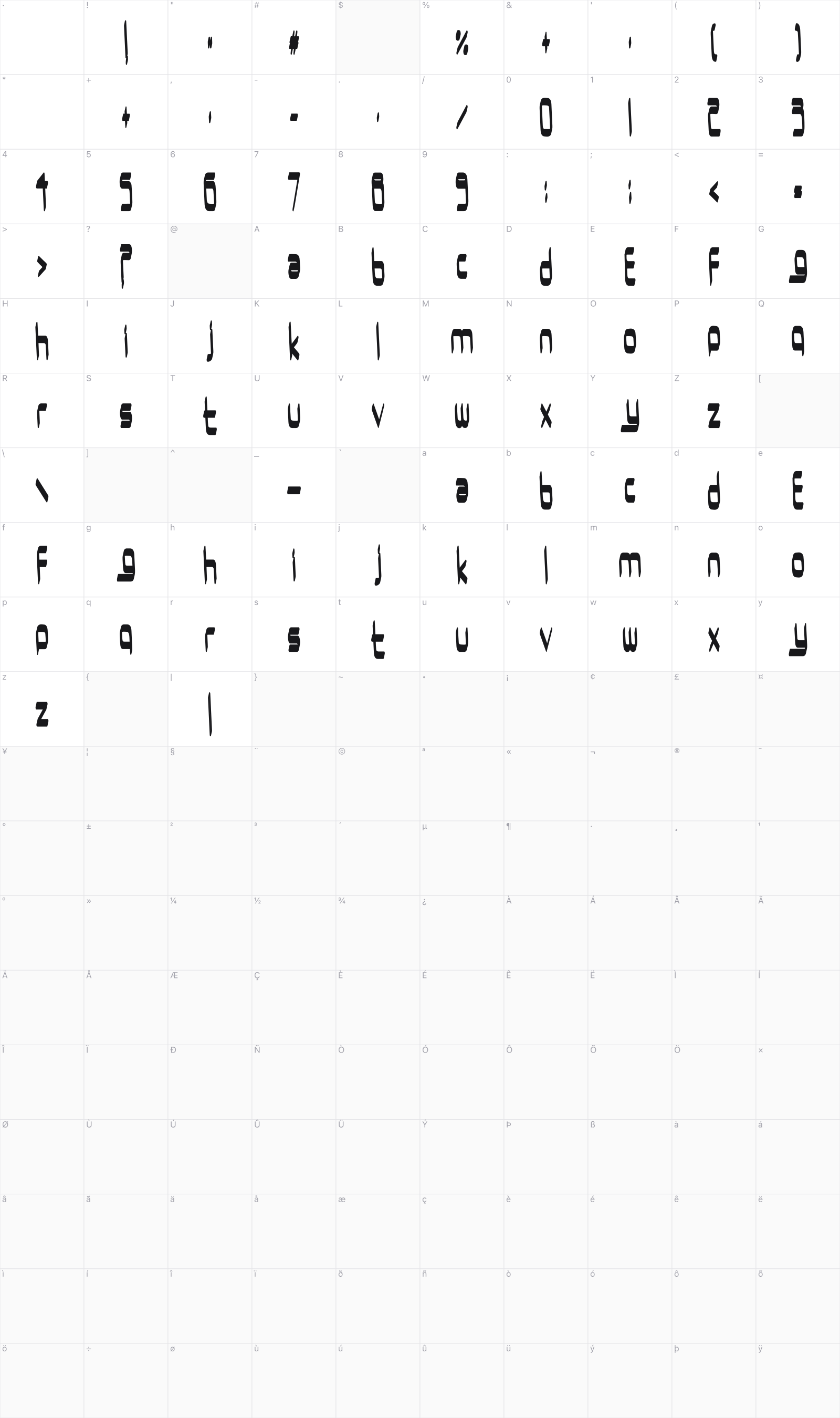
Ur Ur Ma
Ur Ur Ma is a heavy, condensed display face from Ray Larabie with squared-off geometric letterforms that pack a lot of weight into a narrow footprint. The bold proportions and rigid structure give it a futuristic, almost monolithic quality, like signage from a city that hasn't been built yet. Best at large sizes for headlines, posters, and branding where you need density and impact in a tight horizontal space.